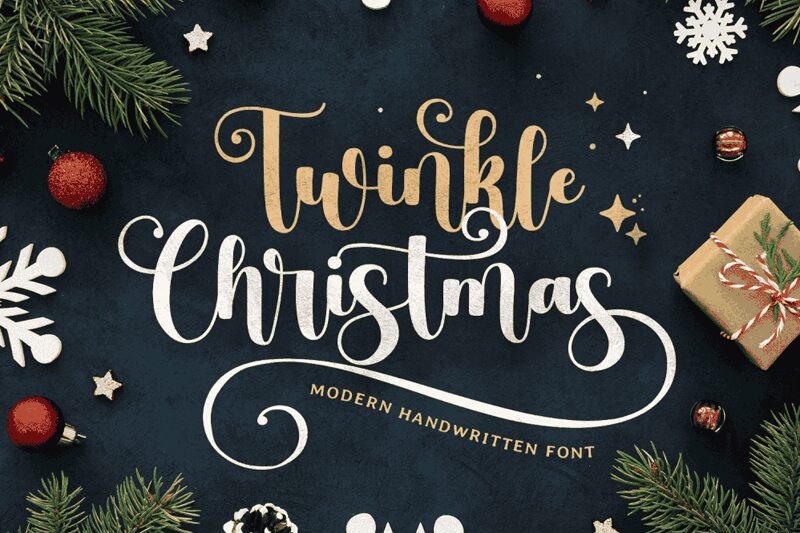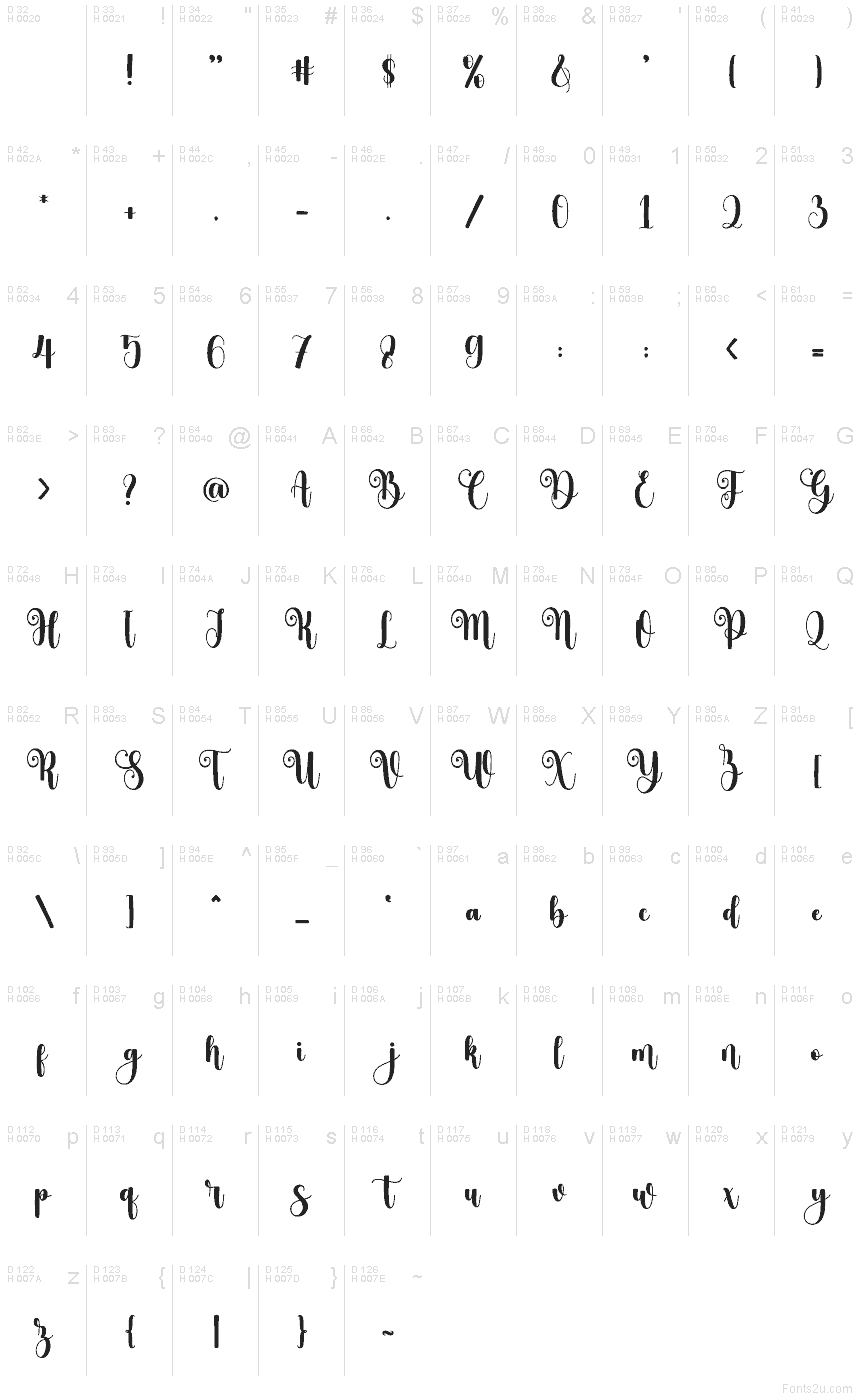
Twinkle Christmas
Twinkle Christmas font by Mozatype is a free holiday calligraphy typeface that wraps your words in cozy, festive charm. Its inky, hand-lettered curves feel like they were brushed straight onto a card, with generous swashes and looping forms that sparkle without getting fussy. The letters connect smoothly, creating a warm, flowing rhythm that instantly says “season’s greetings” on anything it touches.
Using Twinkle Christmas, your Christmas cards, gift tags, party invitations, seasonal logos, mug designs, and social media graphics take on a storybook, fireside glow. This free font holds its character best at larger sizes where the swirls can breathe; pair it with a clean sans serif for body text to keep things readable and let the script do the festive storytelling.